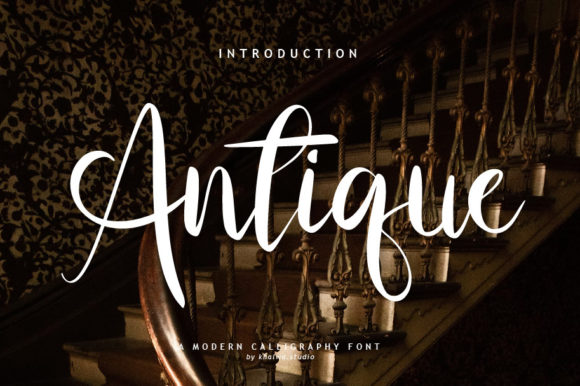
The Timeless Charm of Antique Script Font
As a designer, I’ve had my fair share of font frustrations. I recall working on a project where I needed a font that exuded elegance and sophistication. Hours were spent scrolling through font libraries, but nothing seemed quite right. That was until I stumbled upon Antique Script Font. It was love at first sight! 💕
Antique Script is a lovely and timeless handwritten font that has become a staple in my design toolkit. Its unique and beautiful touch brings a level of sophistication to any design project. In this article, I’ll share my experience with Antique Script, its features, and how to make the most of it in various design platforms.
- ✨ Unique and beautiful letterforms that add a touch of elegance to any design
- 💫 Perfect for creating eye-catching logos, branding, and quotes
- 🎨 Versatile and works well with a variety of design styles
While Antique Script is an exceptional font, there are a few quirks to be aware of:
- ⚠️ Some letters may require manual kerning for optimal spacing
- 🤔 Limited availability of stylistic alternates, which may limit design flexibility
The Backstory of Antique Script
While the origins of Antique Script are unclear, it’s likely that the font was inspired by traditional calligraphy and handwriting techniques. The font’s creator aimed to capture the essence of classic script fonts while infusing it with a modern twist. The result is a timeless and elegant font that’s perfect for a wide range of design projects.
| Font Name | Antique Script Font |
| Author | khalwa.studio |
Q: What type of projects is Antique Script best suited for?
A: Antique Script is versatile and can be used for a variety of projects, including logos, branding, quotes, and more.